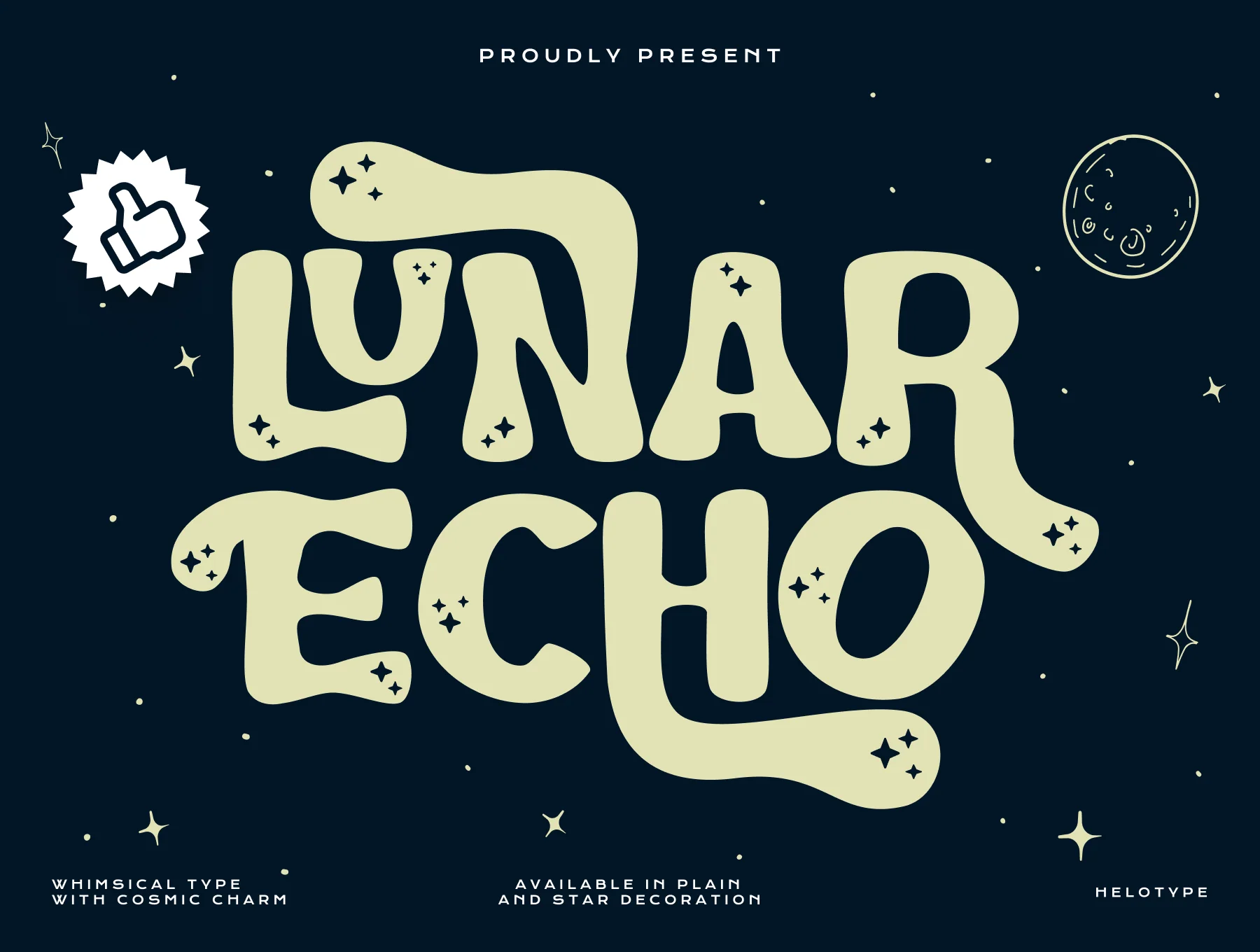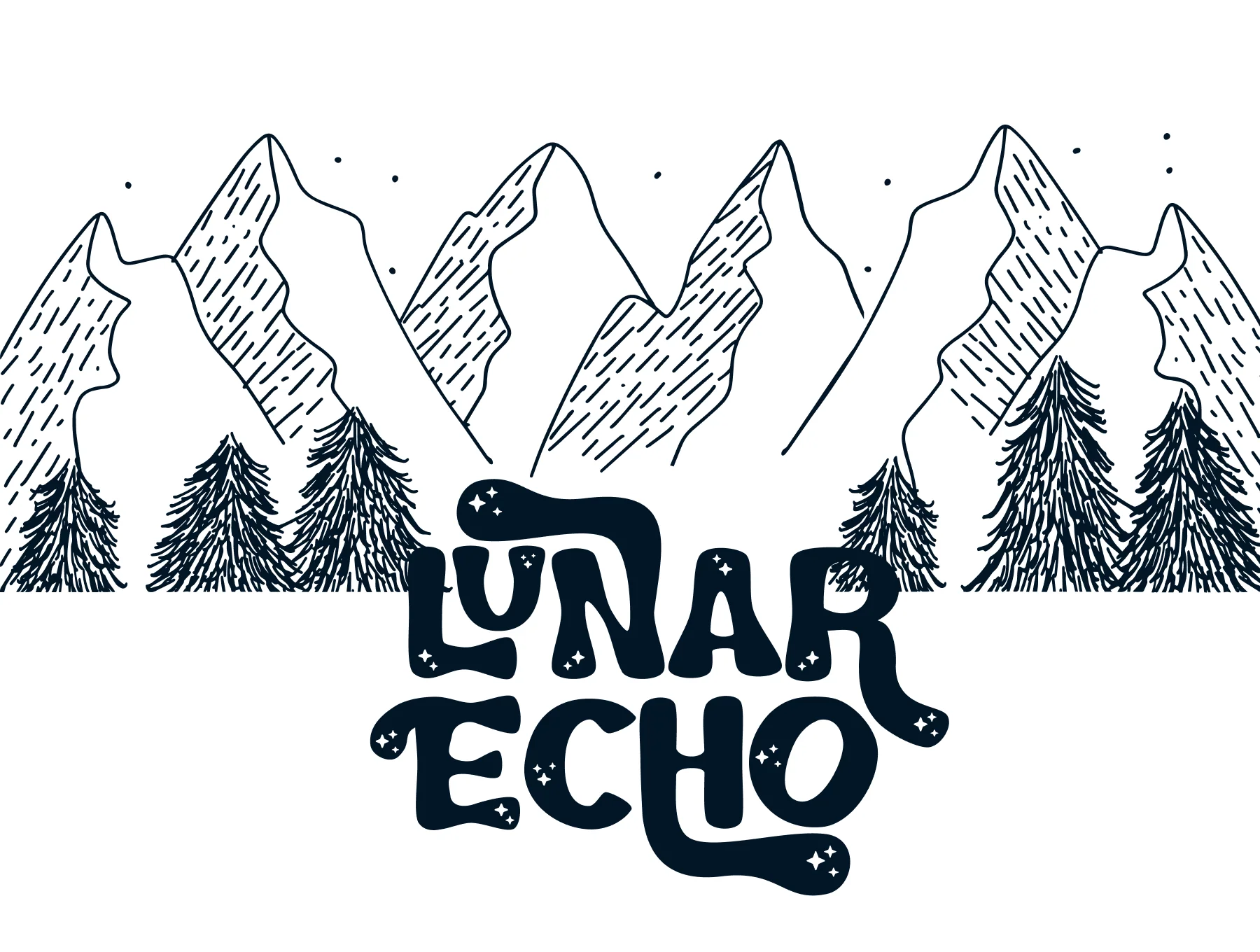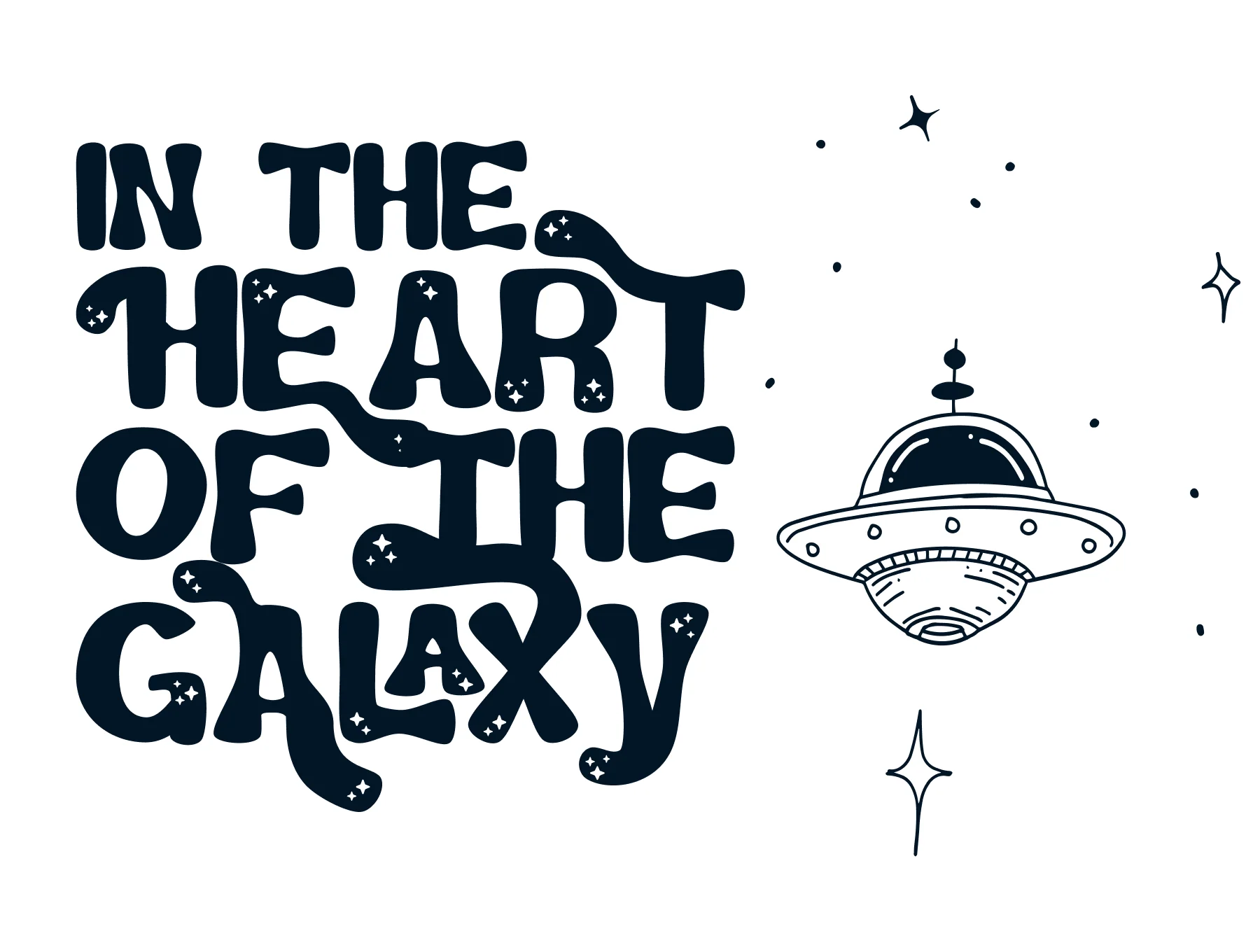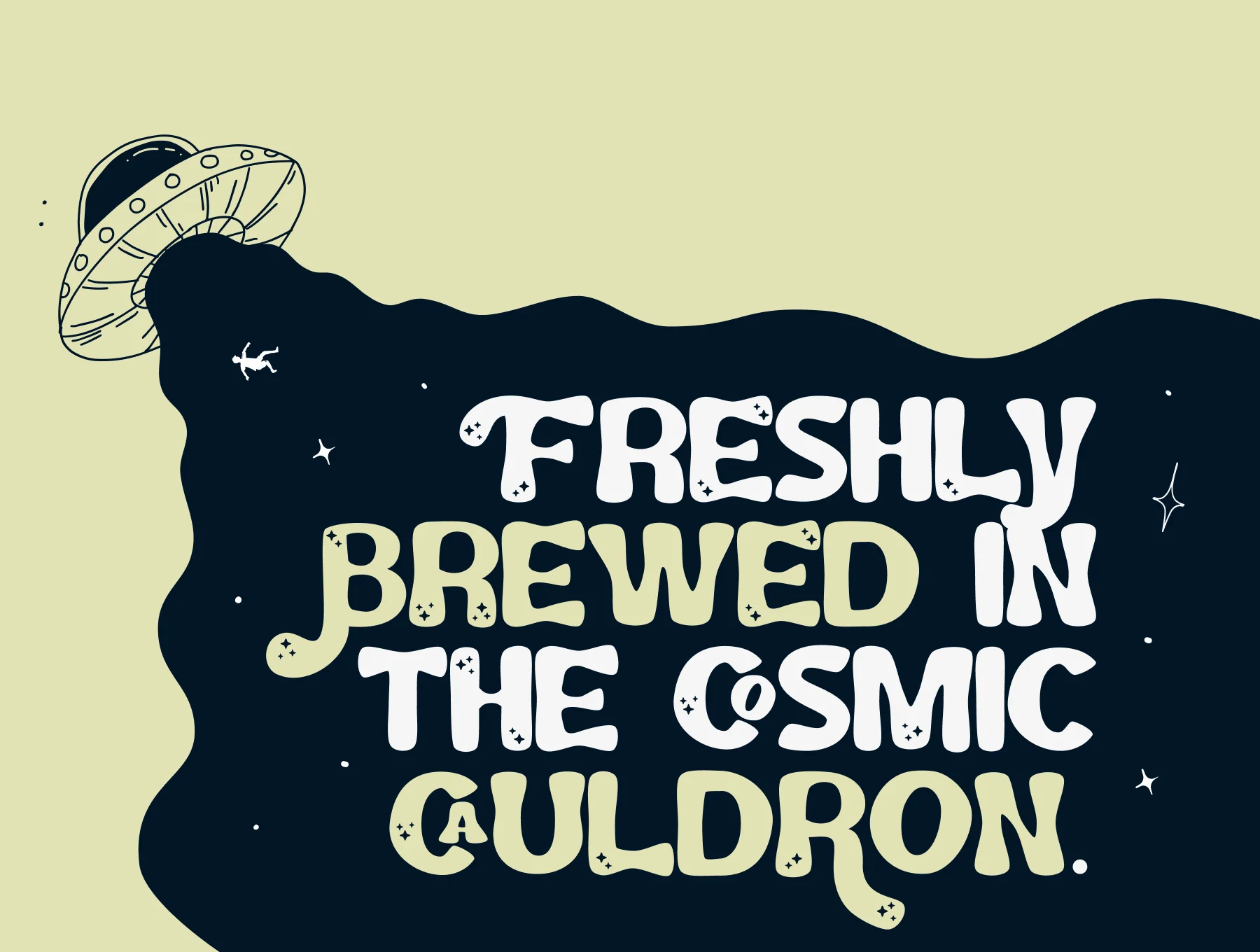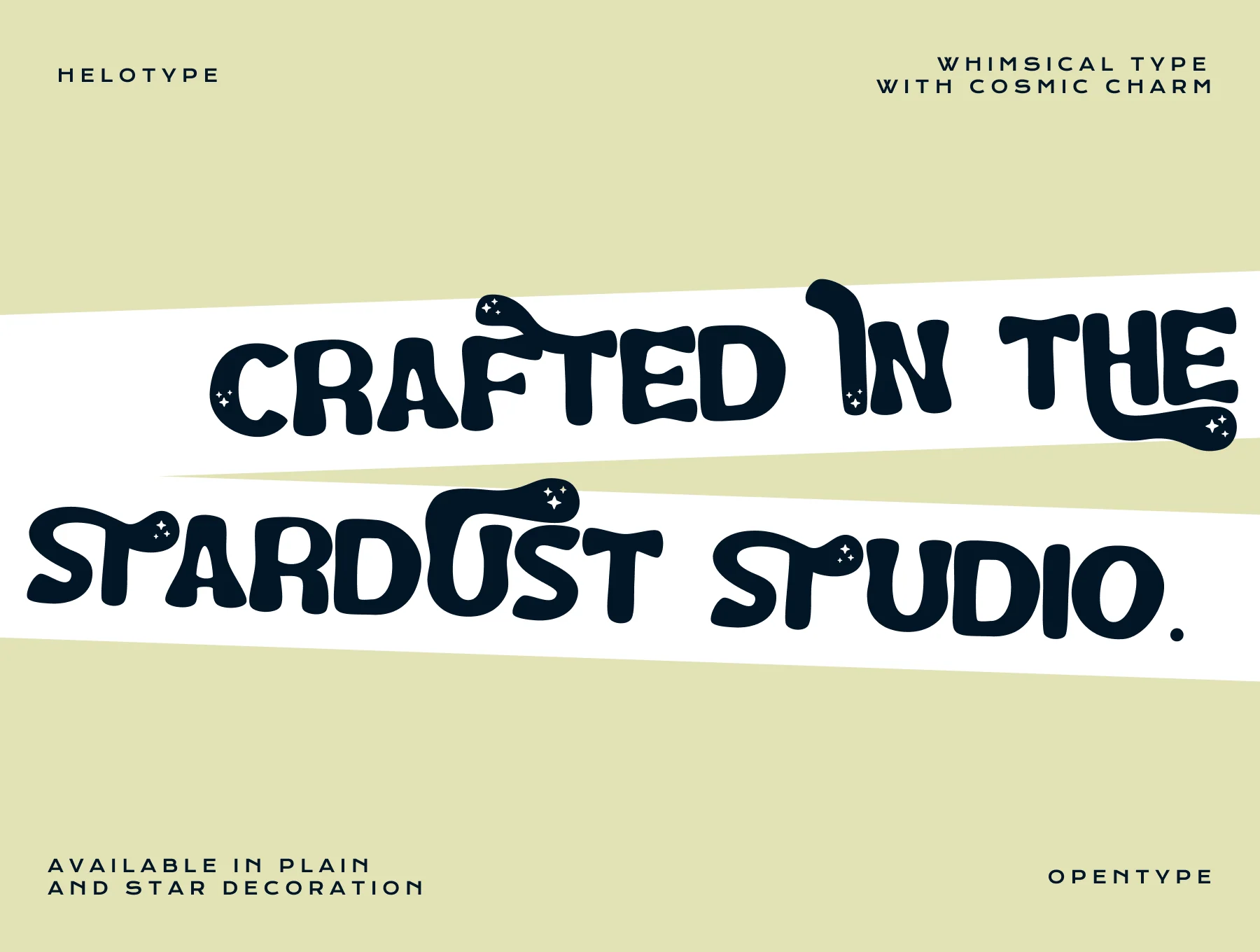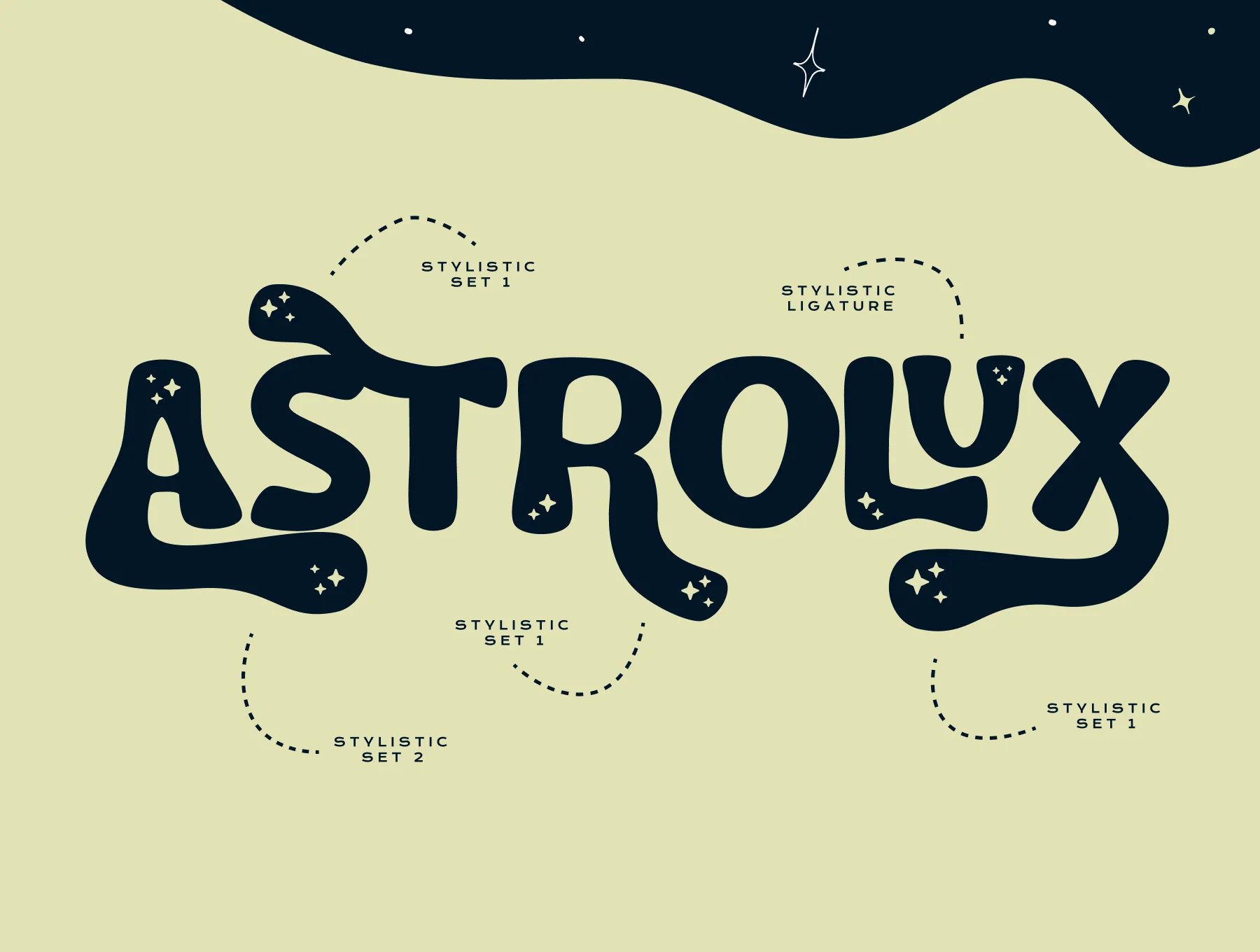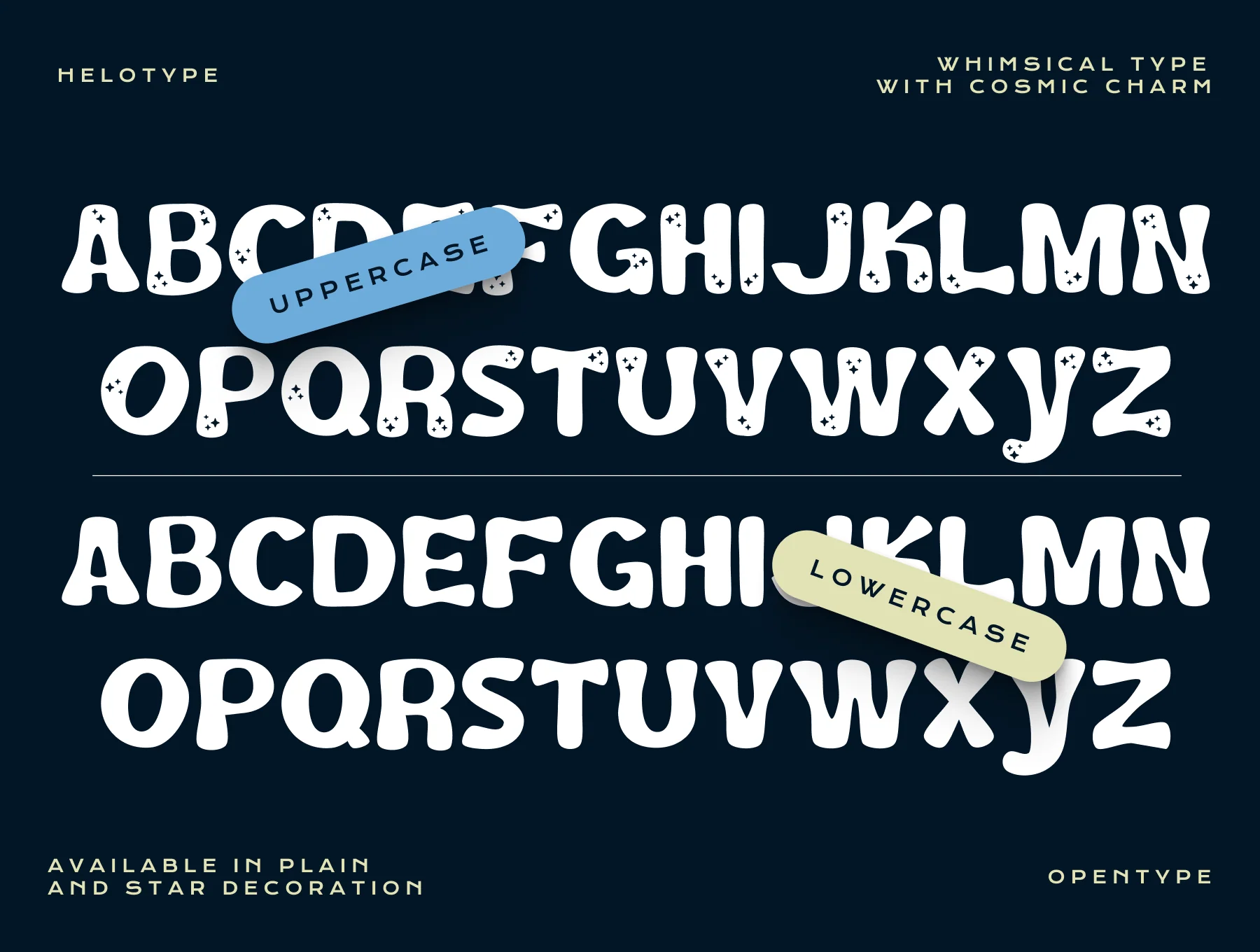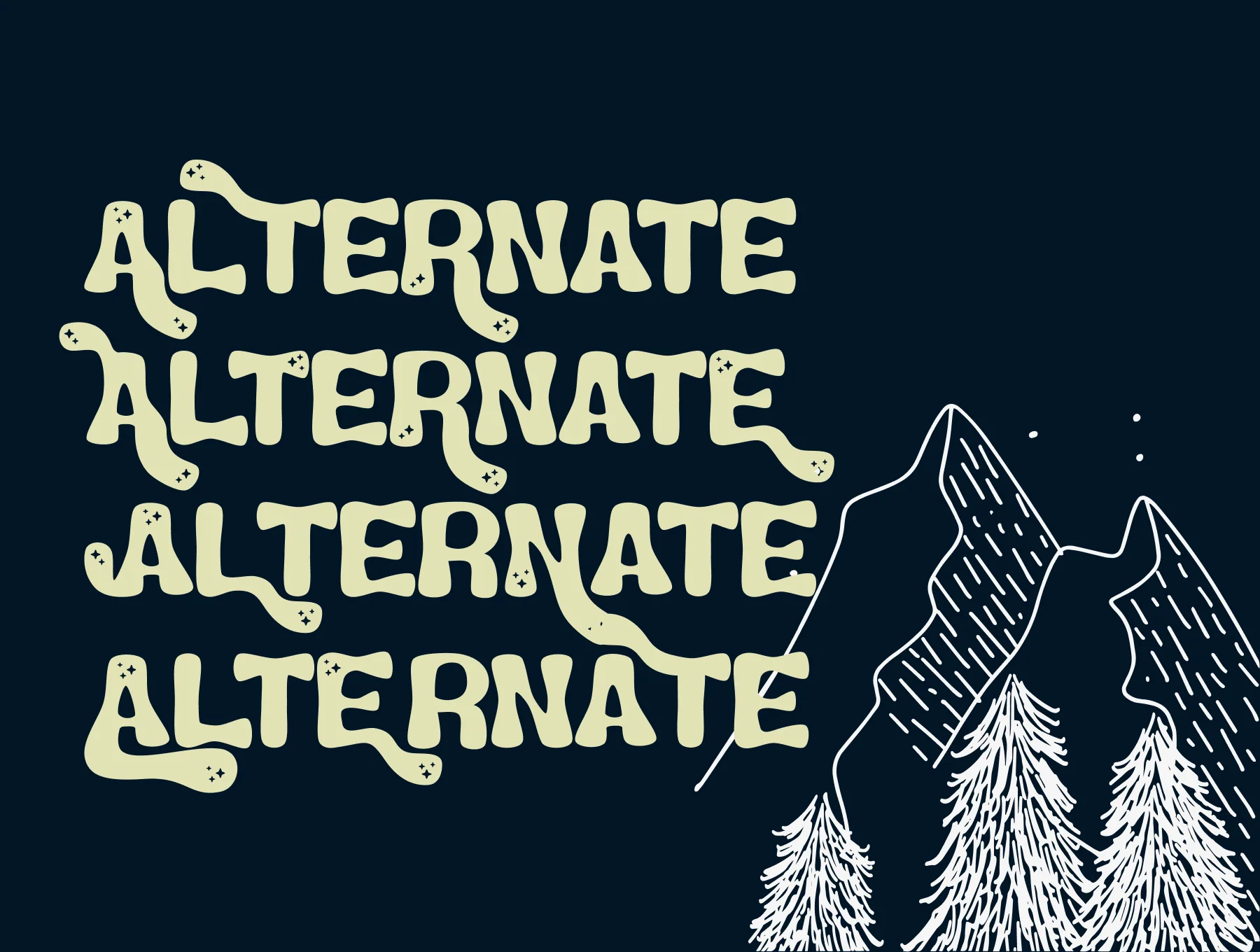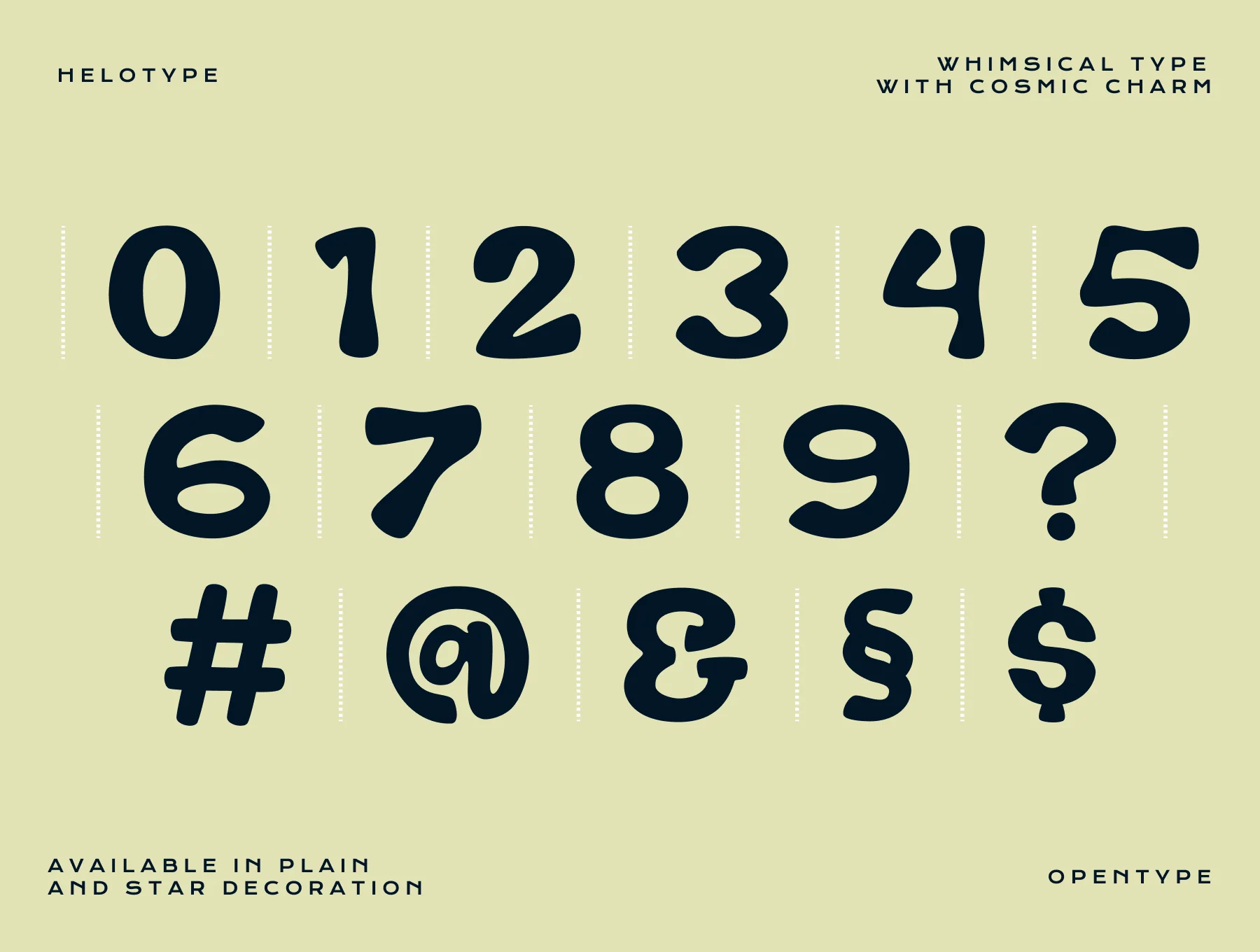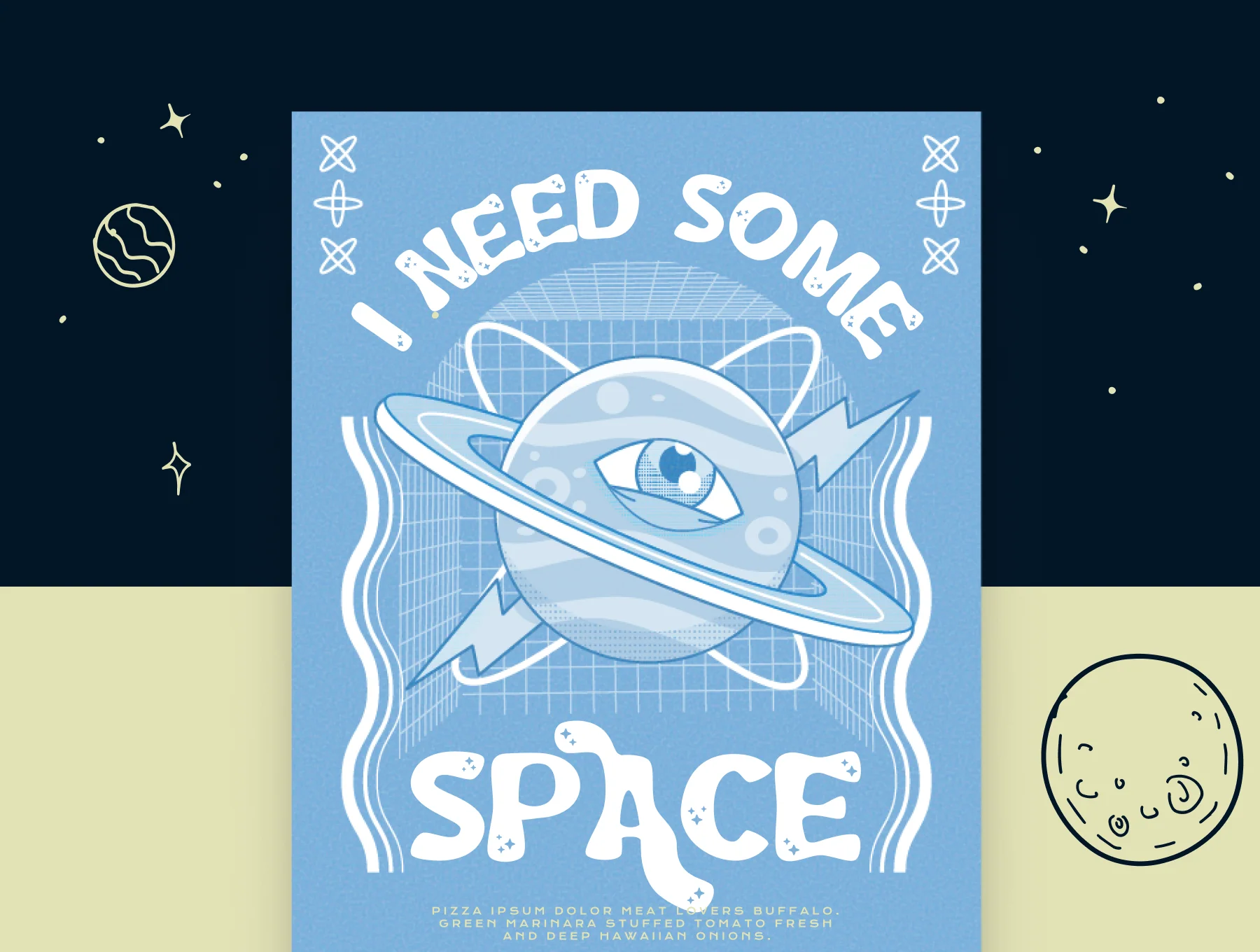
Lunar Echo - Cosmic Vibes Font
Lunar Echo
Includes ligatures and stylistic alternates
Numerals and punctuation included
Launch your creativity with Lunar Echo, a fun space-inspired typeface made to bring celestial personality to any project. Ideal for lively posters, imaginative logos, and dreamy visual concepts, it adds a playful galaxy vibe to your designs.